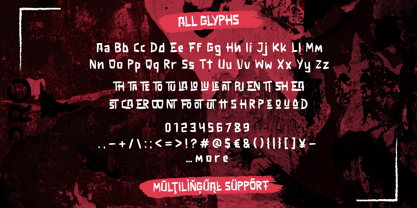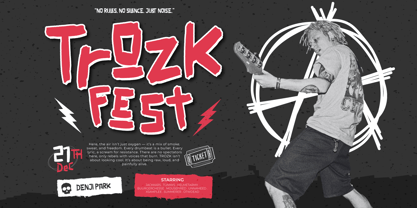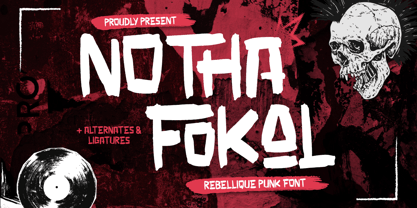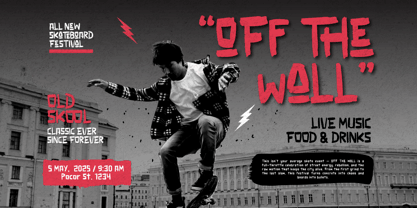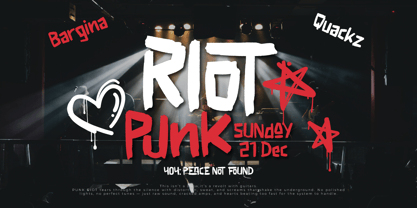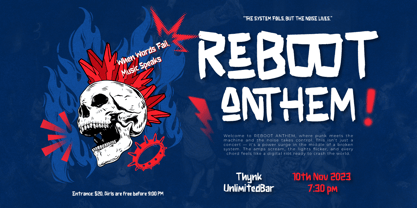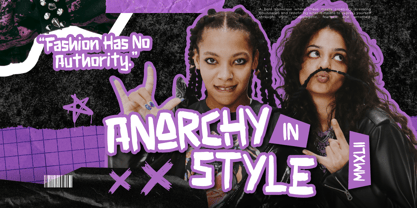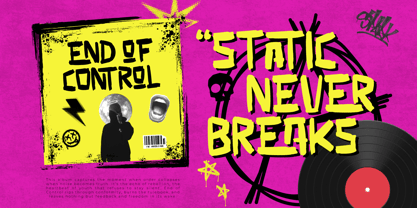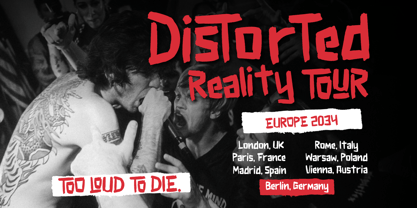
Notha Fokal – Rebellique Punk Font is a bold, chaotic typeface that screams rebellion and attitude. Born from the raw spirit of underground culture, it captures the energy of ripped posters, loud music, and gritty streets. Its rough brush strokes and uneven edges create an authentic hand-drawn look that feels defiant and untamed.
This font is packed with alternates and ligatures, giving each composition a wild, unpredictable edge. Every letter feels alive—crafted for those who dare to break the rules and make noise through their visuals. Whether used for loud headlines, album covers, or experimental branding, Notha Fokal amplifies emotion and chaos in the best way possible.
Notha Fokal is not just a typeface—it’s a visual protest. It brings back the raw essence of punk, rebellion, and self-expression in every stroke, turning words into statements that can’t be ignored.